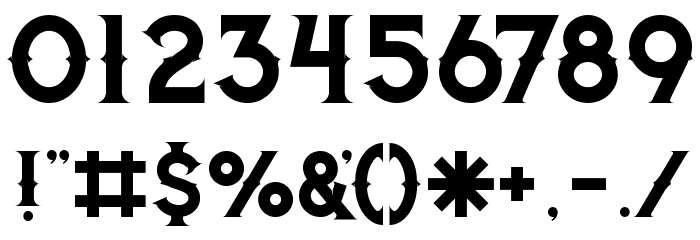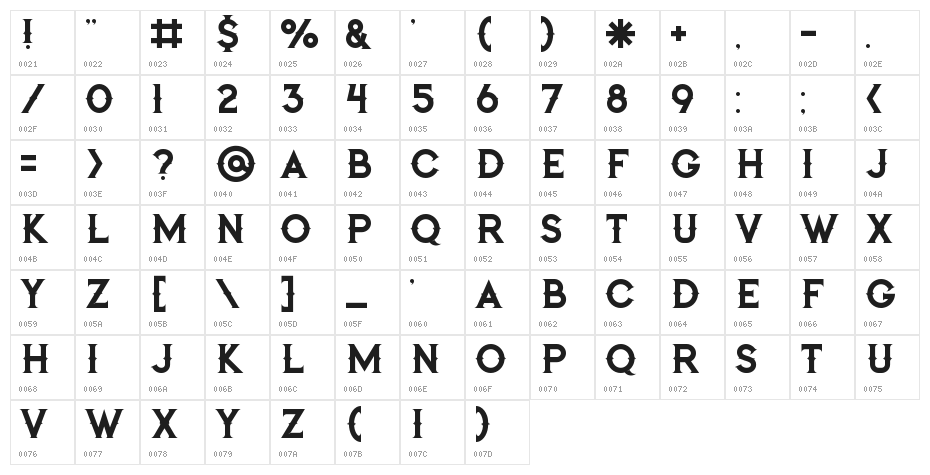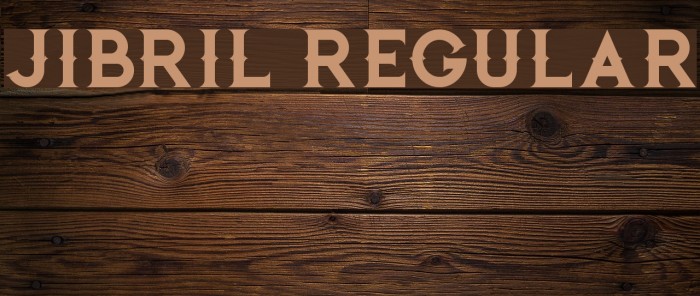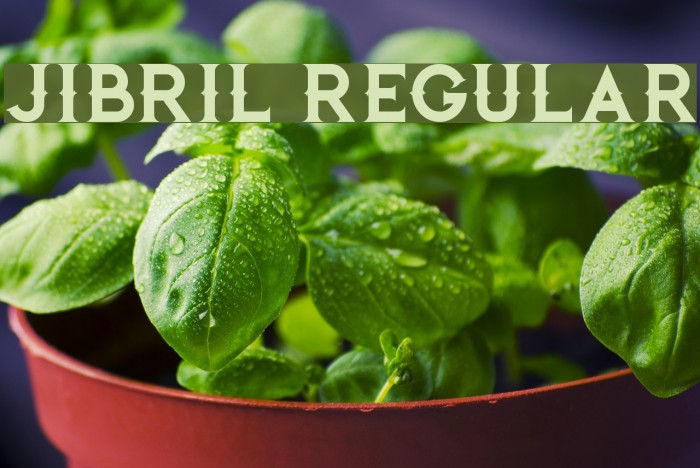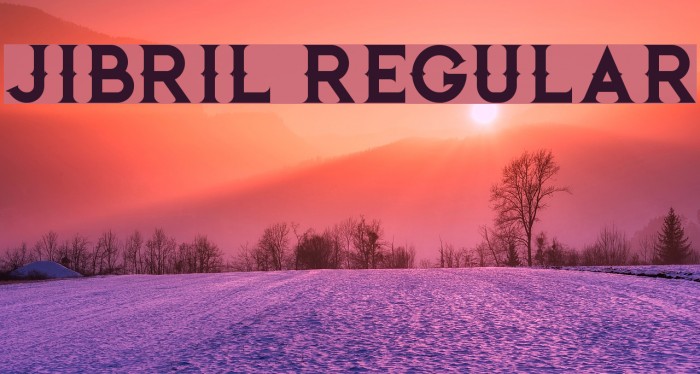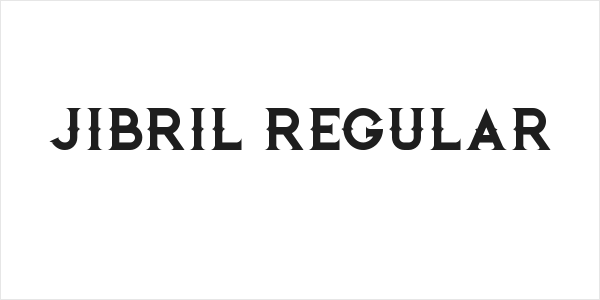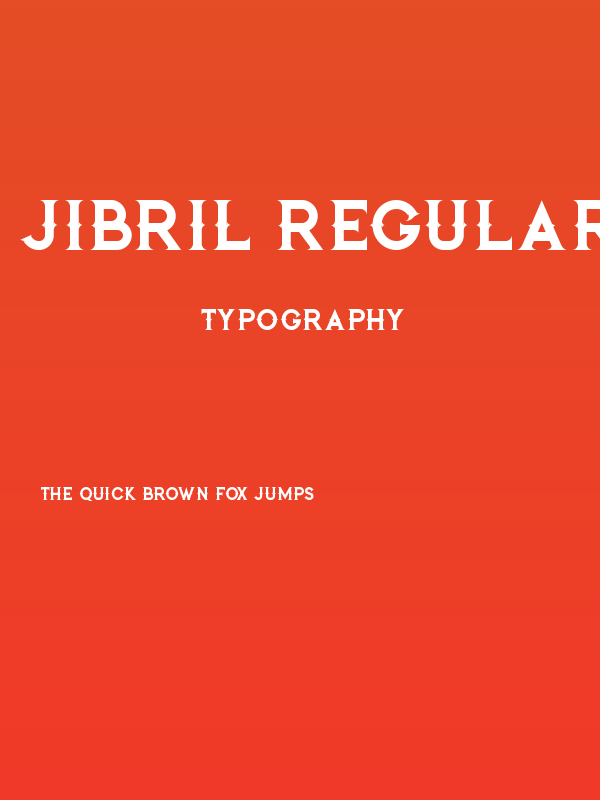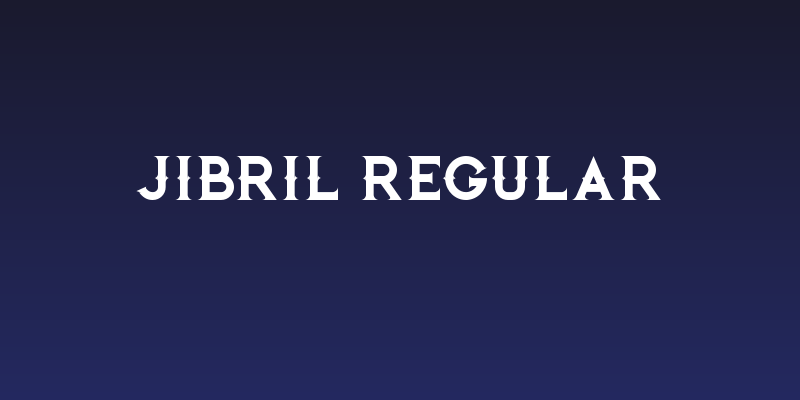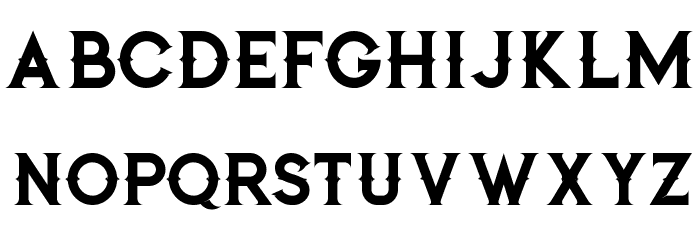
Jibril Regular Font
Jibril Regular Description
This font features a bold and striking design with sharp, angular serifs that give it a distinctive and authoritative appearance. The characters are uniformly bold, with a consistent stroke weight that enhances readability while maintaining a strong visual impact. The uppercase letters are particularly prominent, with a geometric precision that suggests a modern yet timeless aesthetic. The numerals and special characters are equally bold, ensuring they stand out in any context. The overall design is both functional and decorative, making it suitable for a variety of uses where a strong, commanding presence is desired.
| Proposed Projects | Ideal for branding, headlines, posters, and any project requiring a strong visual impact. |